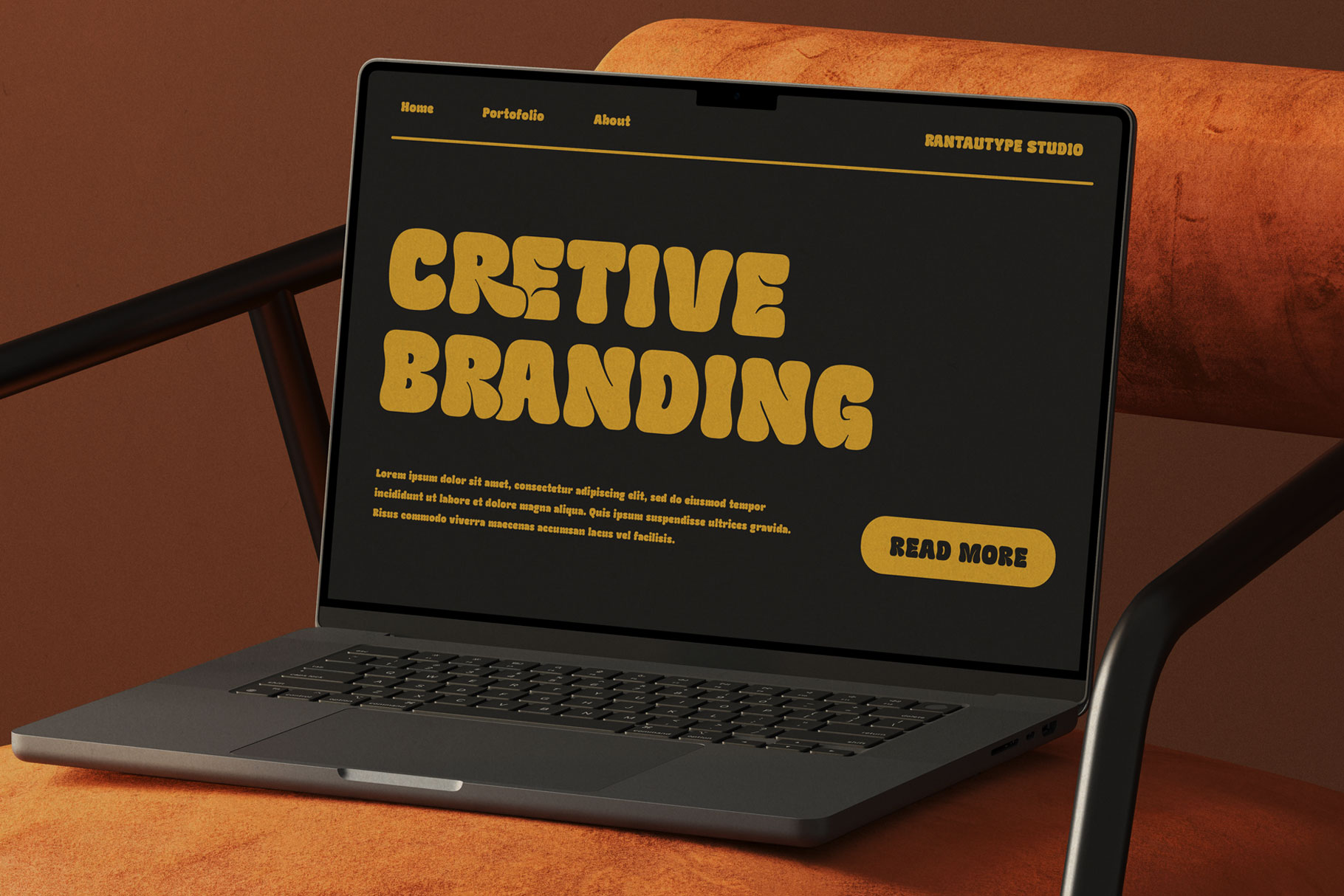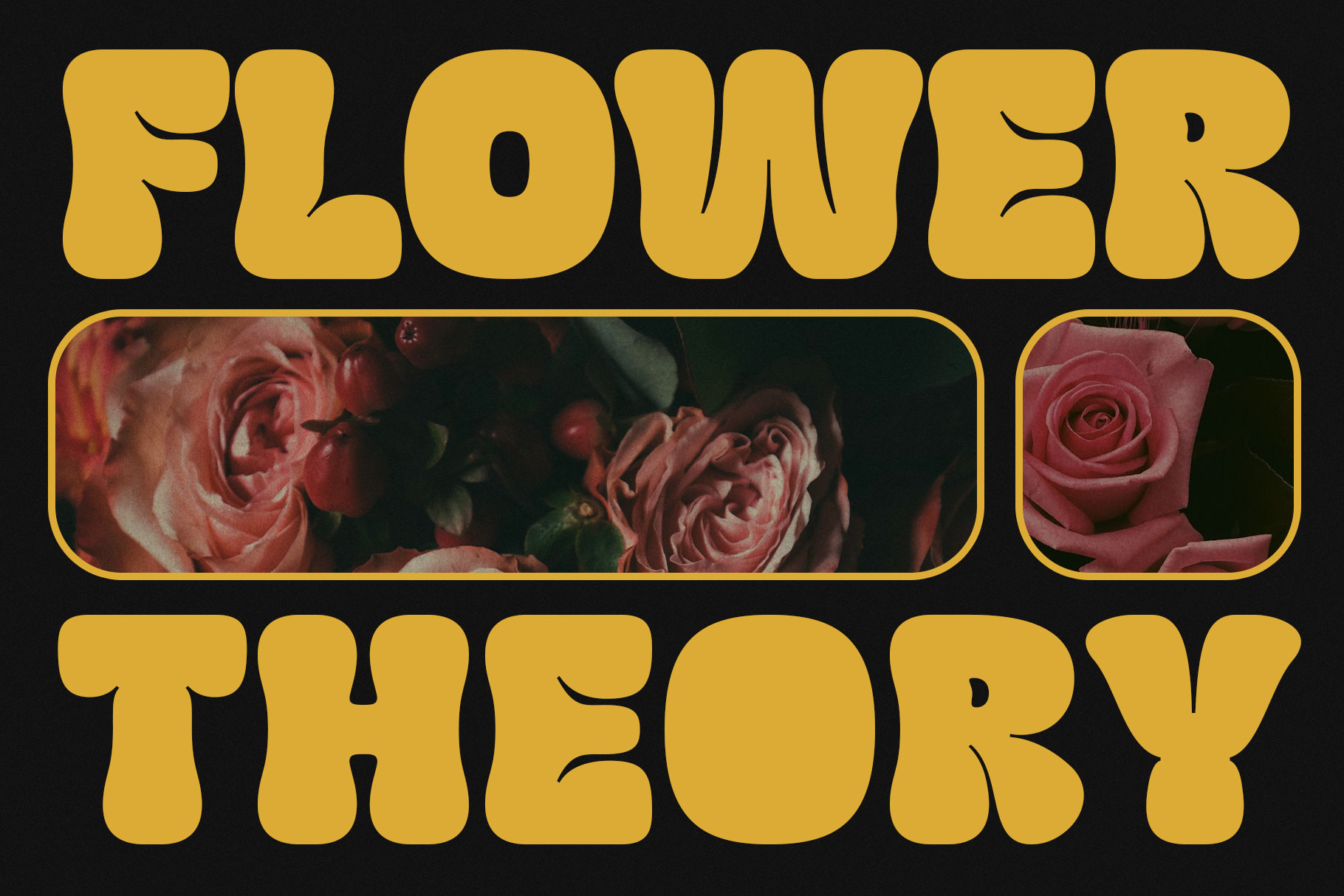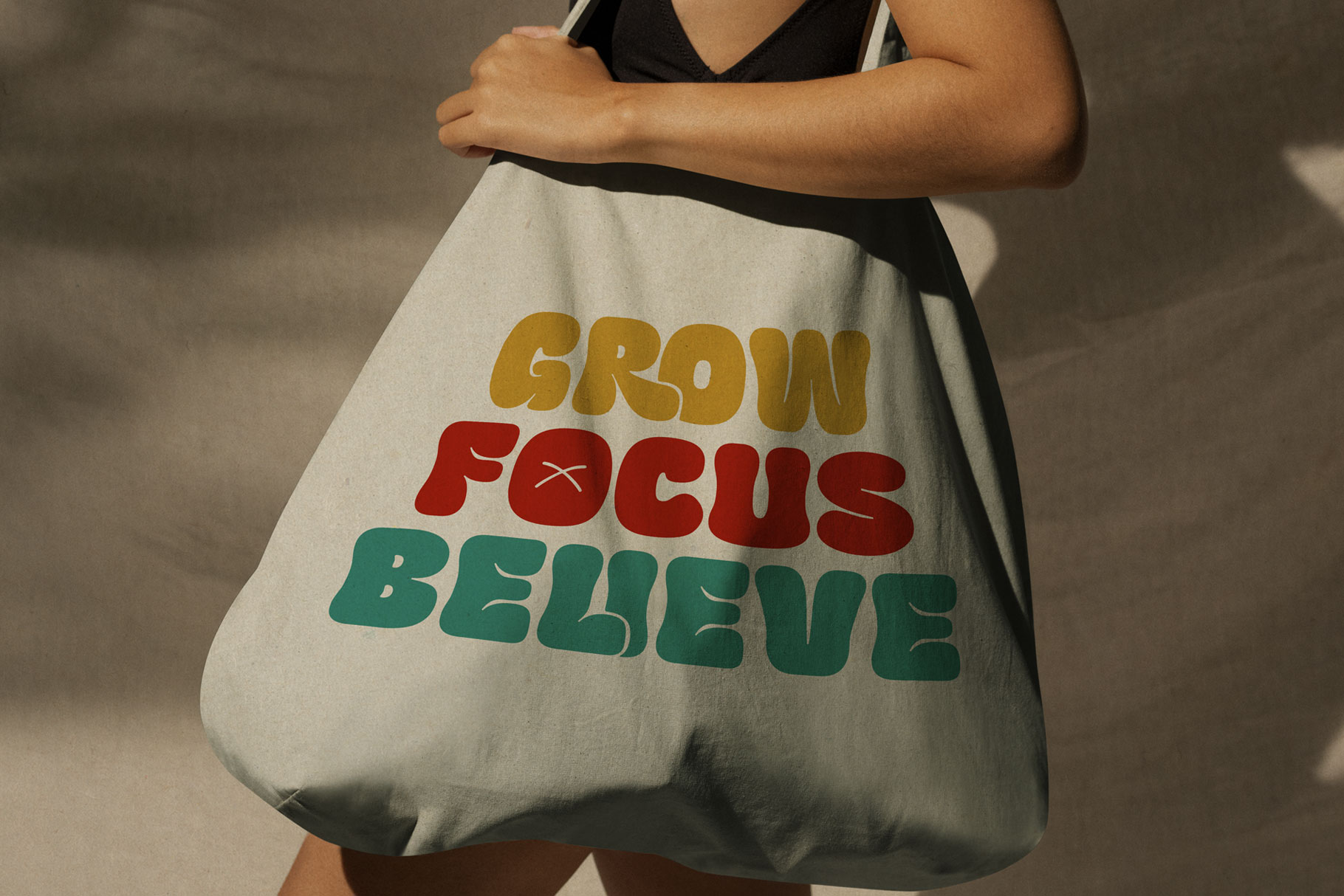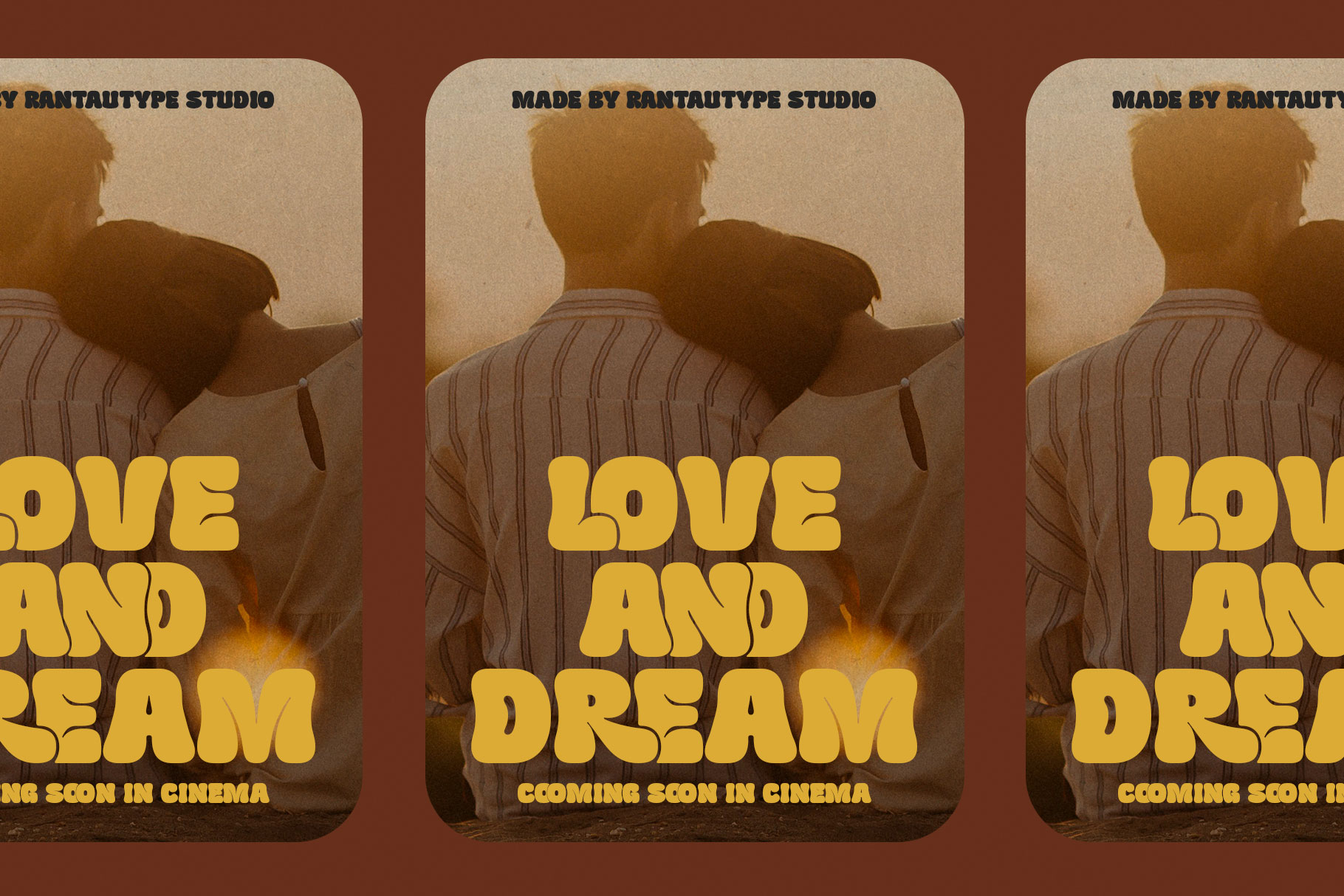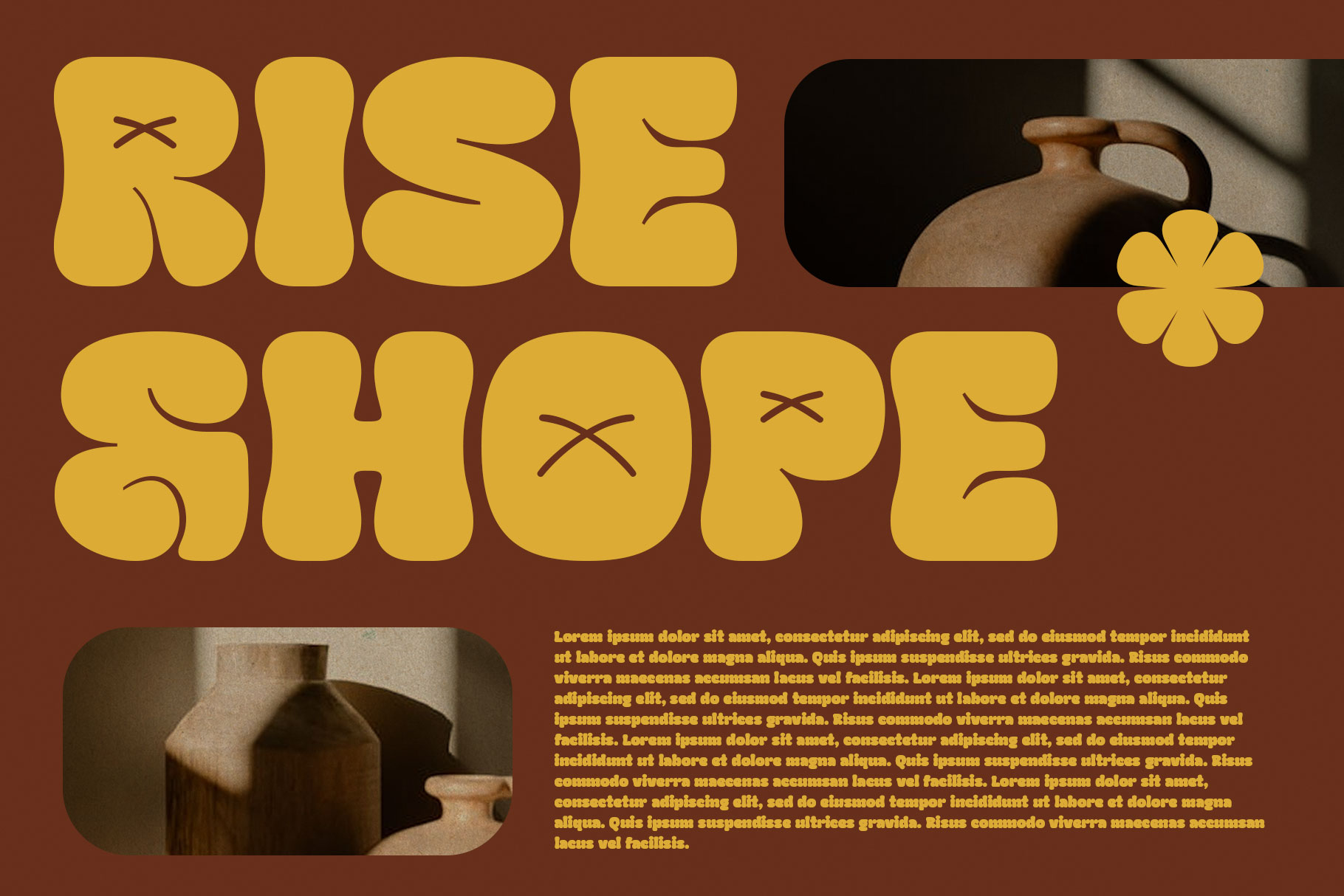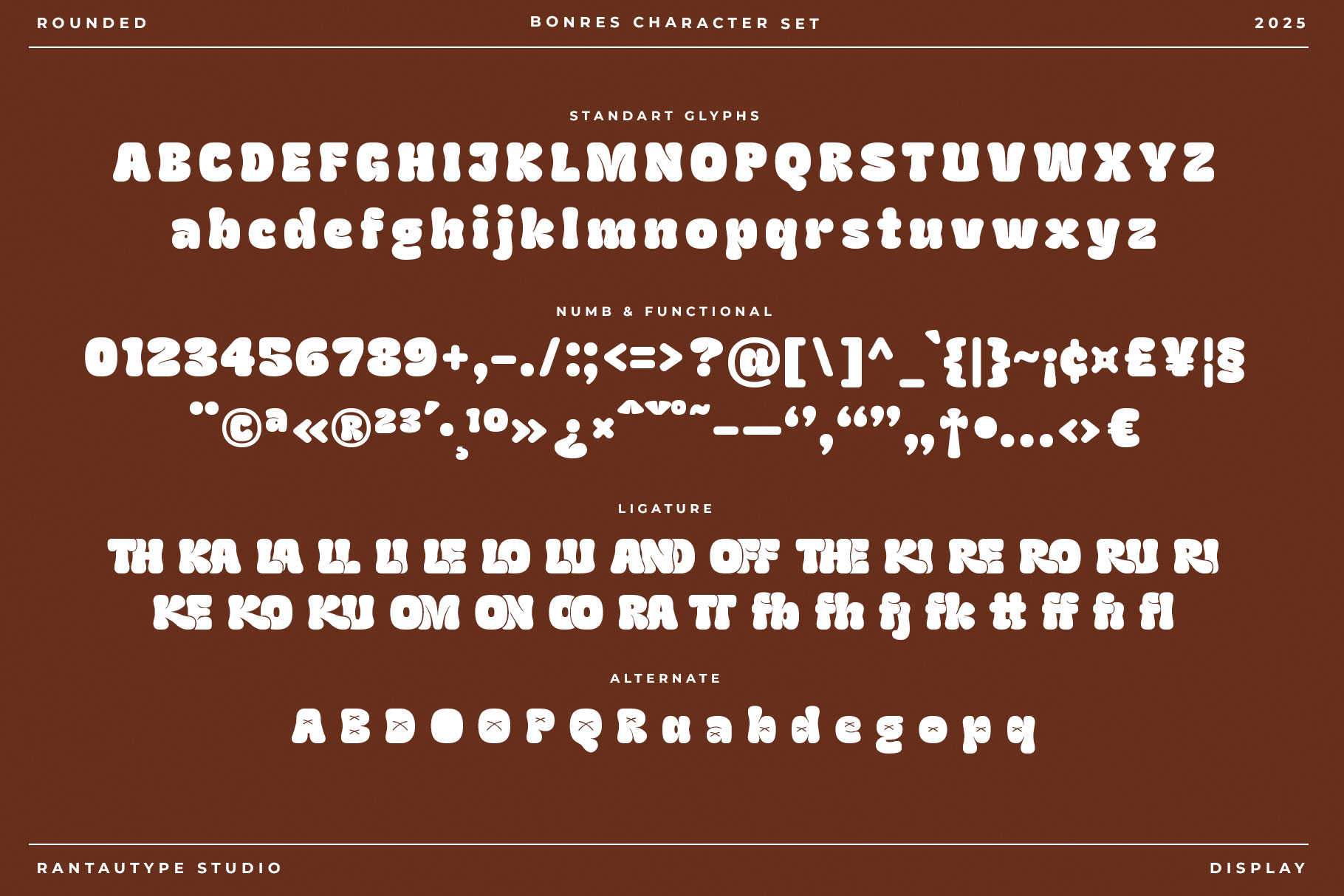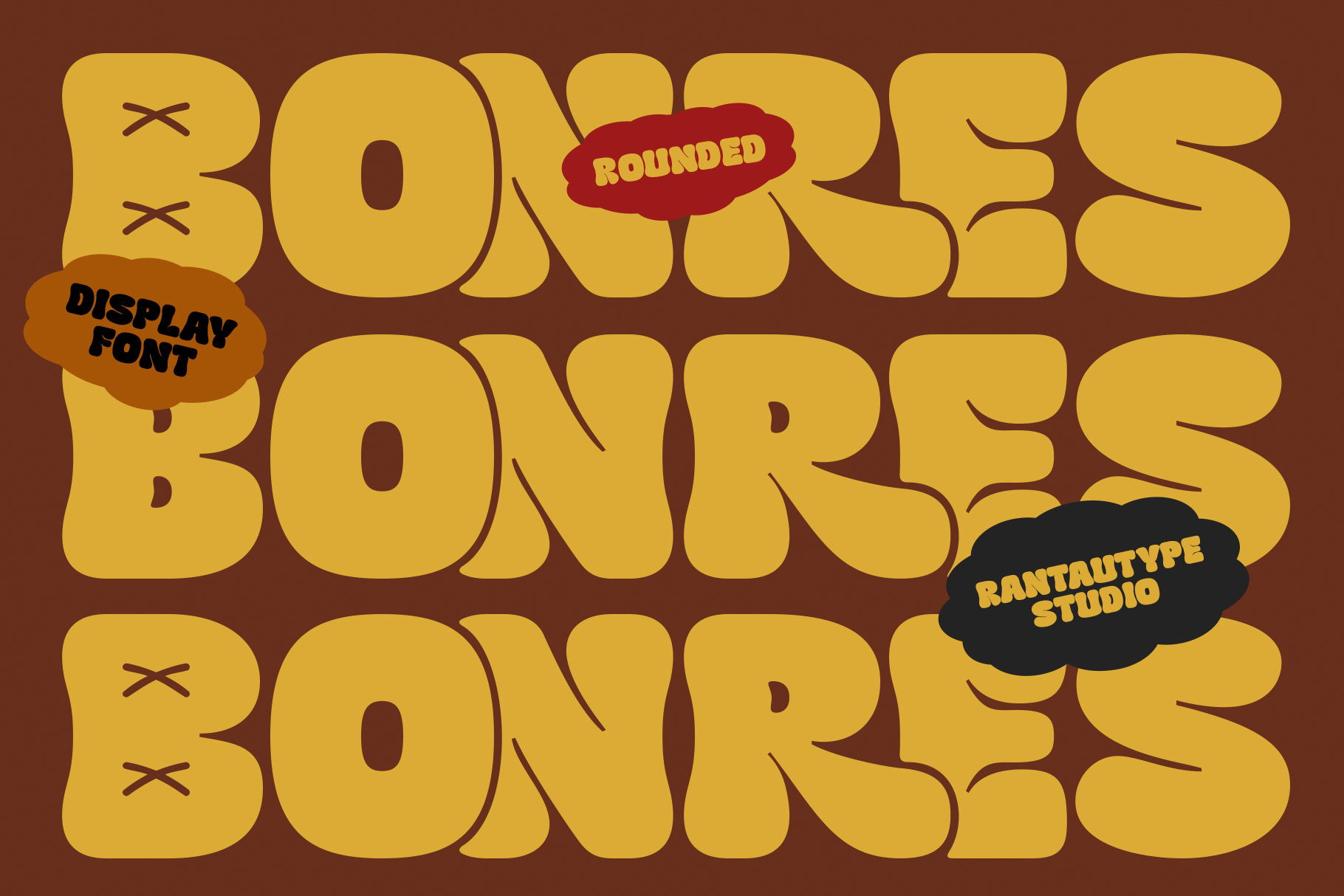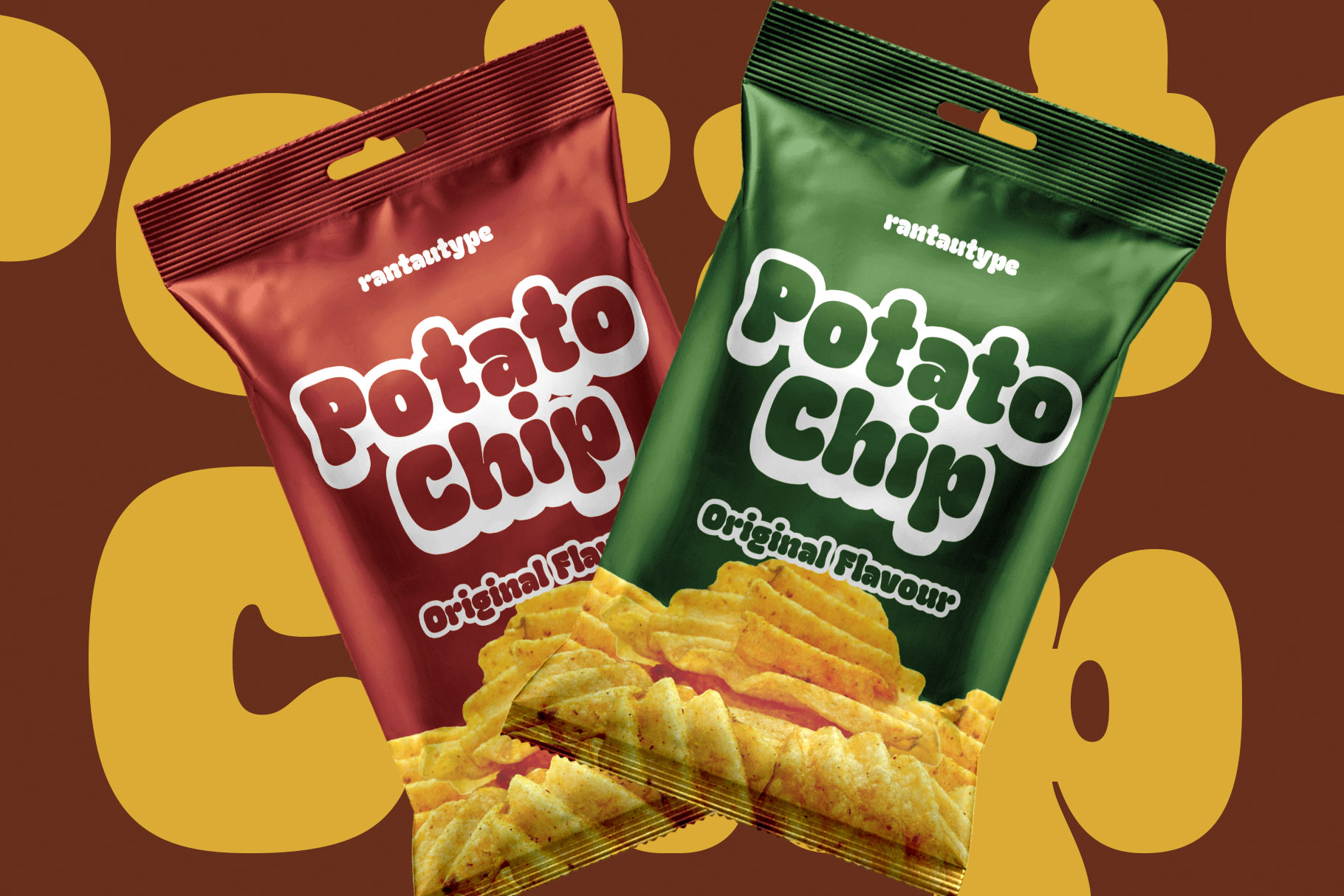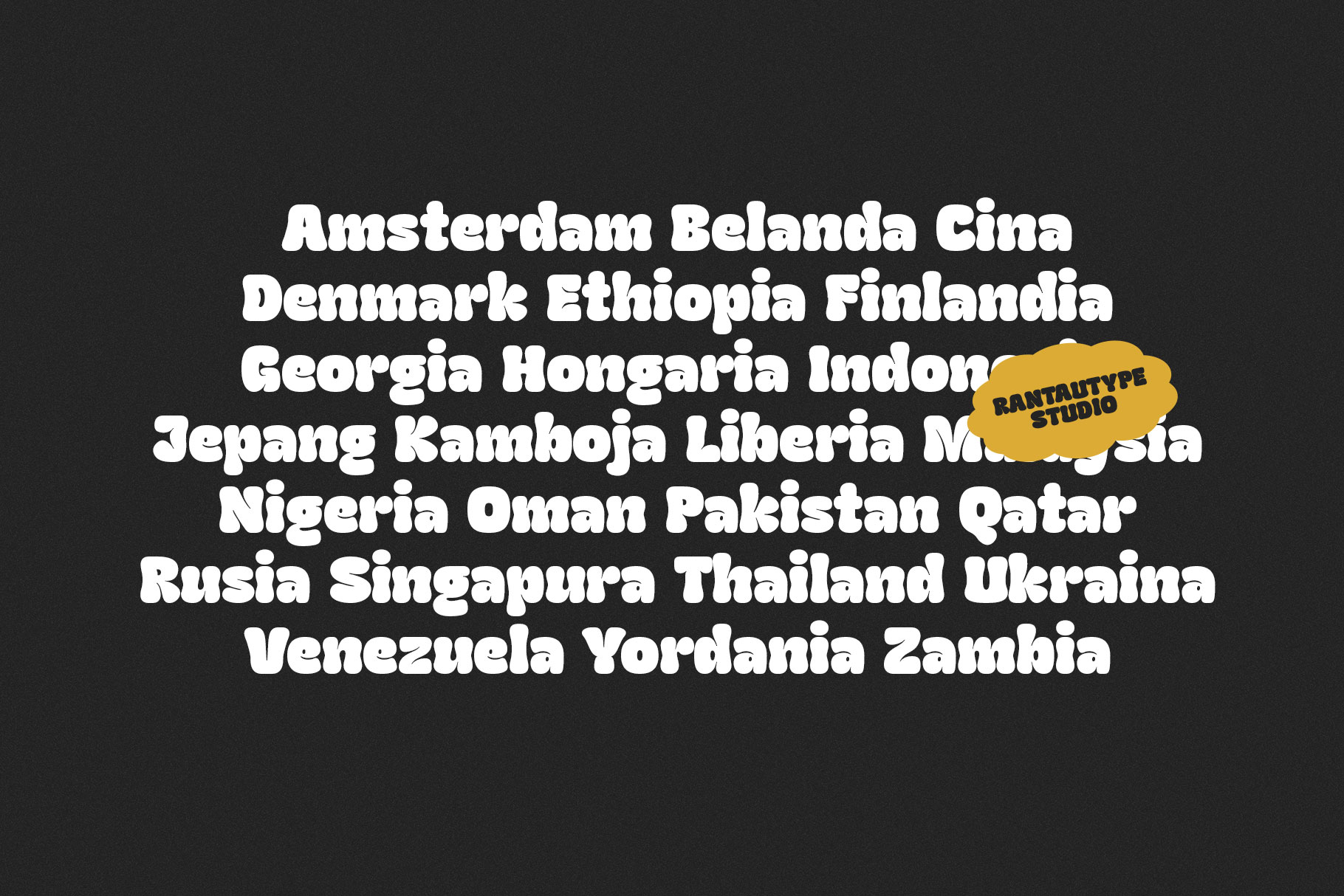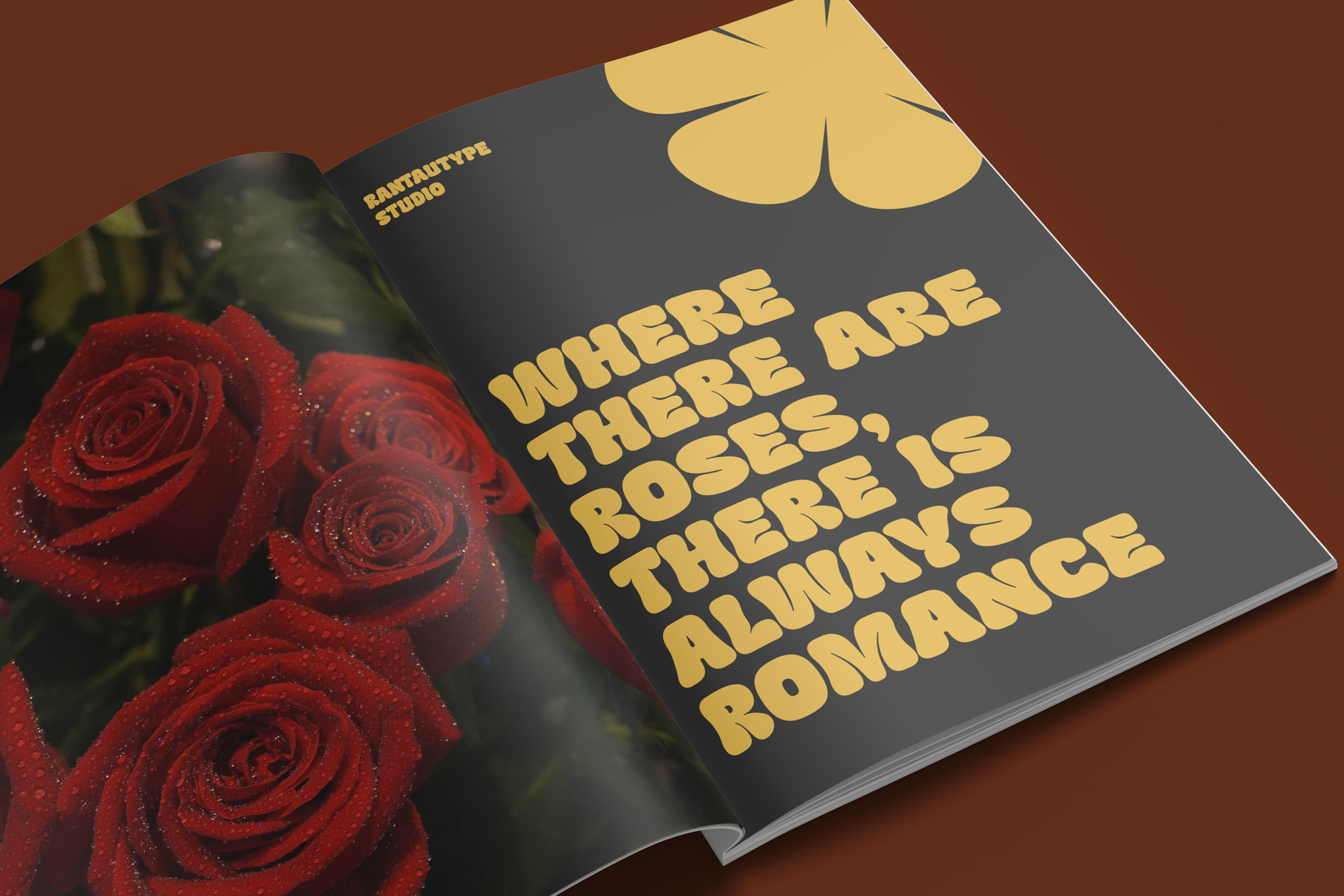
Bonres Rounded Display Font
Bonres is celebration of playfulness, creativity, and visual charm crafted for designs that demand personality and presence. Bonres come with bold curves and smooth edges, this typeface radiates warmth and friendliness, making every letter feel approachable and full of life. Its rounded terminals soften each character, giving the font a bubbly, energetic rhythm reminiscent of retro pop culture, modern digital aesthetics, and youthful branding.
Bonres is a perfectly choice for any creative endeavor, chic, lifestyle design such as logotype, advertisements, watermark on photography, stationery, branding project, display and magazine, invitation, corporate brand, product design, label, business project and many other project with playful touch.